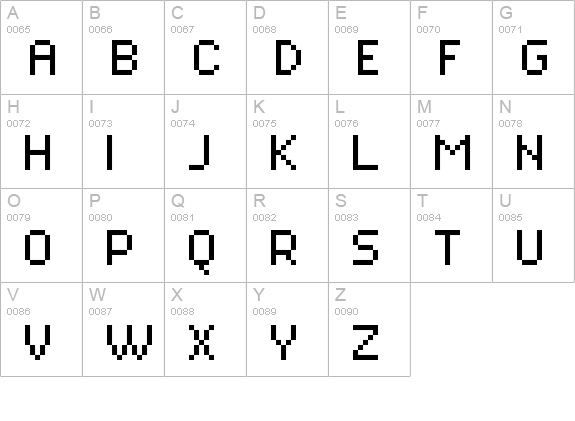
Kroeger 07_55 is a modern and stylish font that exudes elegance and sophistication. With its clean lines and contemporary design, this font is perfect for a wide range of design projects, from branding to marketing materials. The versatility of Kroeger 07_55 makes it a popular choice among designers looking for a sleek and professional look. The best part about Kroeger 07_55 is that it is completely free to download at FontsMarket.com. This means that you can easily access this high-quality font without having to worry about any additional costs. Whether you're working on a personal project or a client's design, Kroeger 07_55 is a fantastic addition to your font library. Don't miss out on the opportunity to enhance your designs with the modern and stylish Kroeger 07_55 font. Download it for free today at FontsMarket.com and take your projects to the next level.